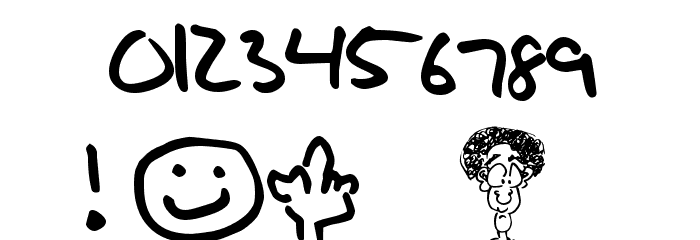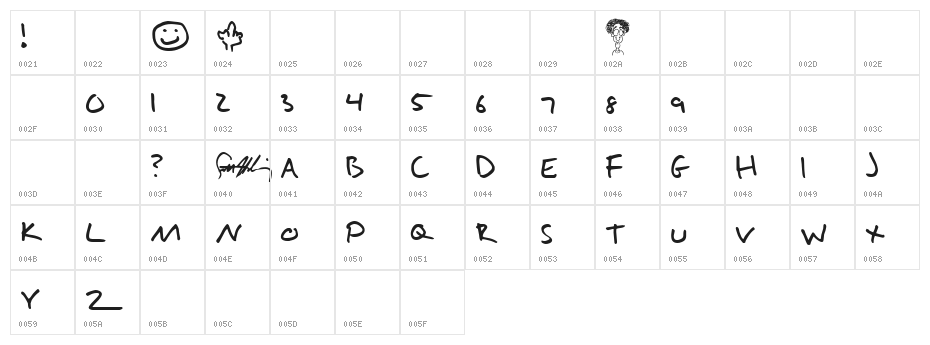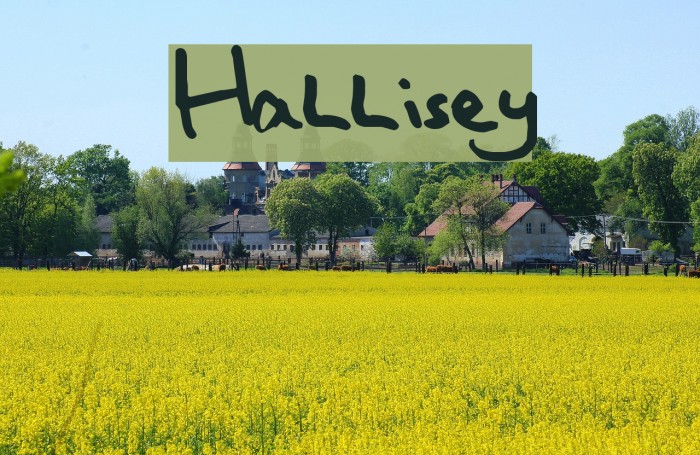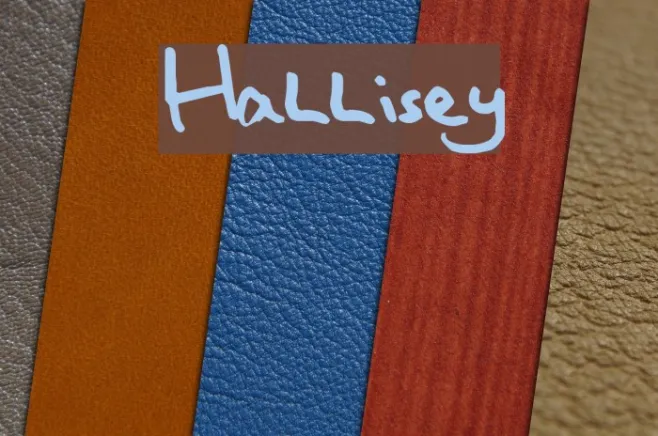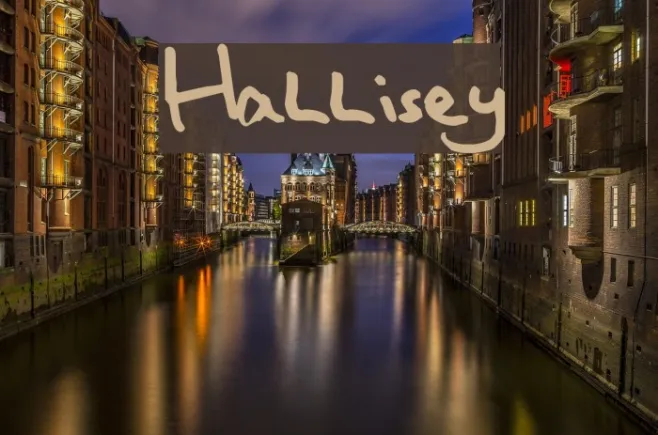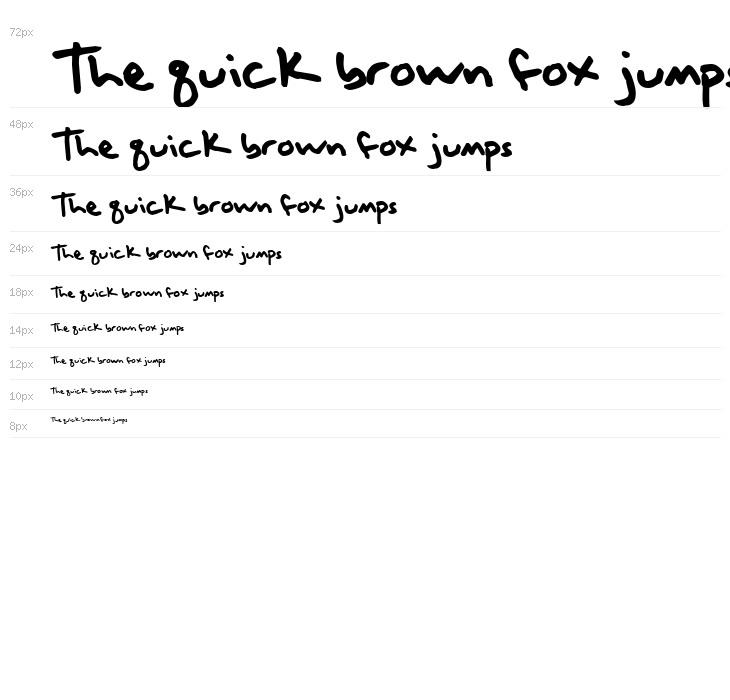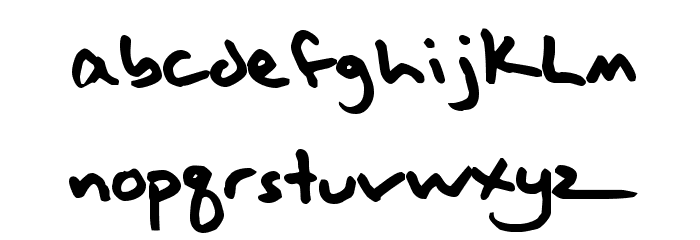
Hallisey Font
Hallisey Description
This font exudes a playful and casual handwritten style, characterized by its loose and informal strokes. The letters are unevenly sized, with a natural flow that mimics the spontaneity of handwriting. The uppercase and lowercase letters maintain a consistent style, with rounded edges and a slightly tilted orientation, adding to the relaxed feel. Numbers and special characters follow the same informal aesthetic, making the font suitable for projects that require a personal touch. The overall appearance is approachable and friendly, ideal for creative and informal applications.
| Use Case | Logos, Greeting cards, Informal notes |
| Proposed Projects | Great for greeting cards, personal notes, children's books, and casual branding. |